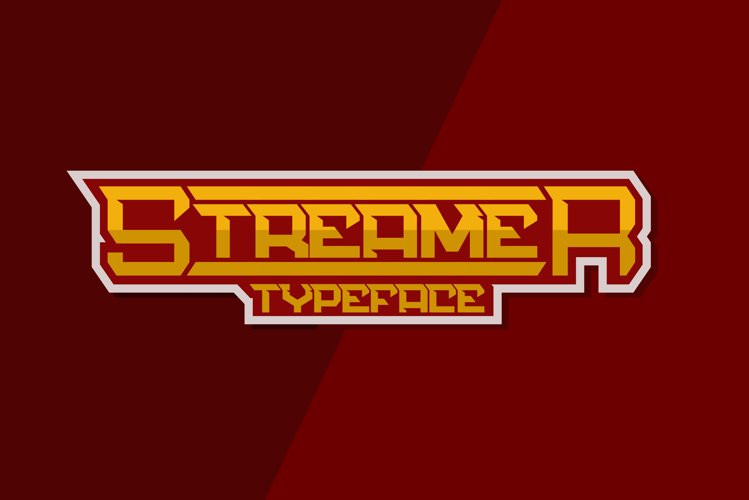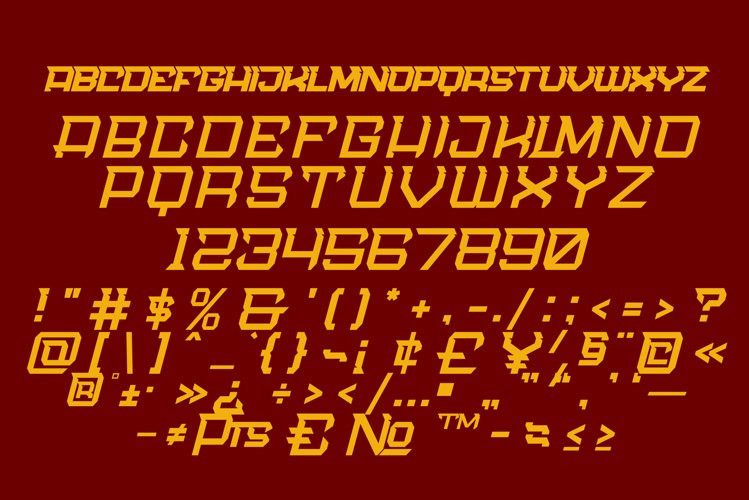
Streamer Font
Streamer is a Bold and Strong display font. Streamer typeface consist of streamer regular and slant version. completed with alternate feature to make a lot of variations of your design. Incredibly versatile, this font will fit a wide pool of designs. Add this font to your favorite creative ideas and notice how it makes them come alive!